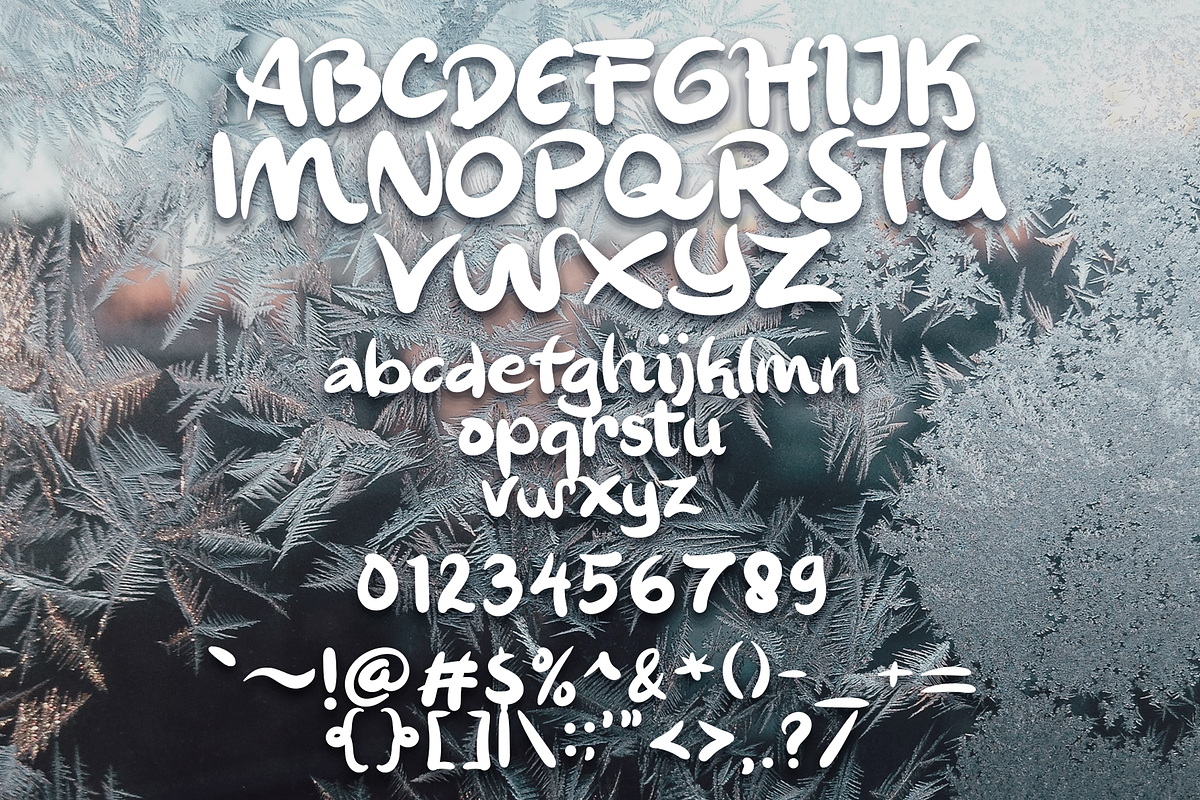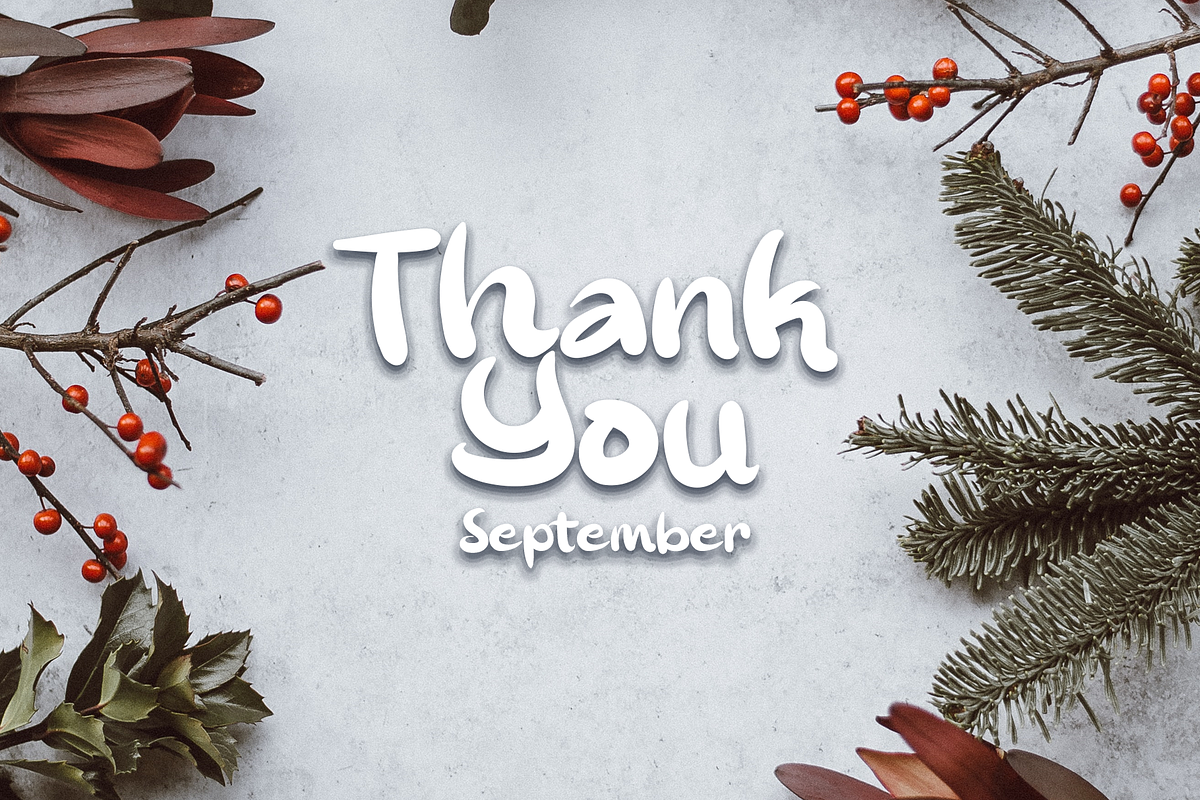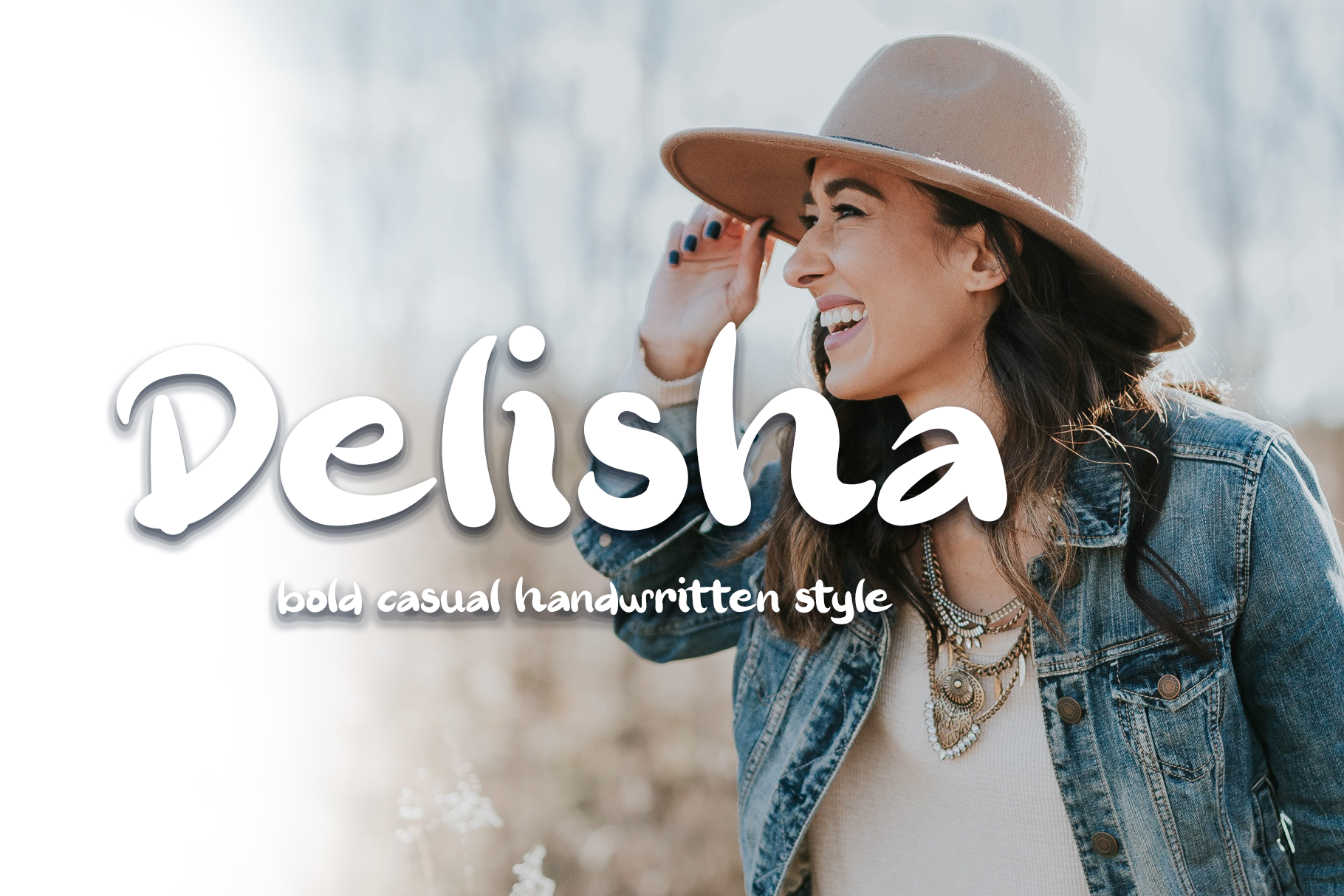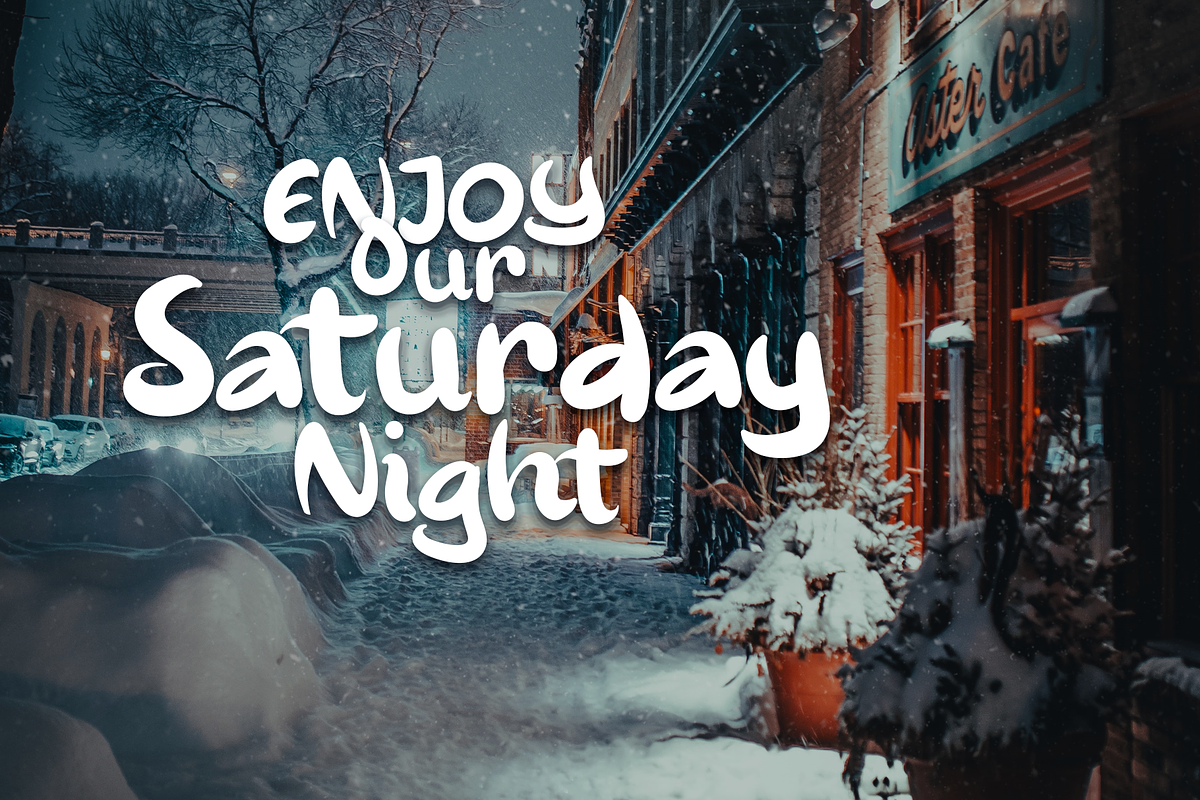
Delisha - Handwritten Font
Introducing Delisha, a simple and unique handwritten font. So perfect for you who needs a typeface for logo designs, magazine, social media, brochure, and many more.